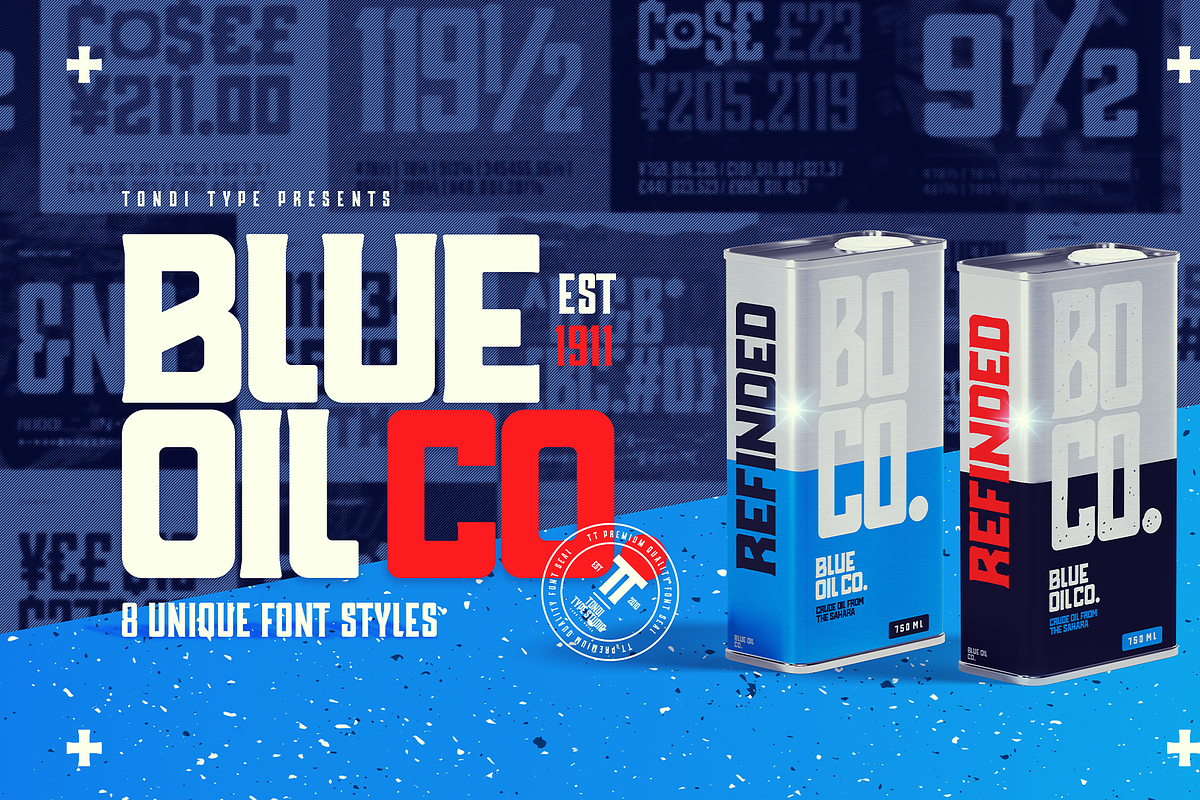
Blue Oil Co. | Vintage Font Family Free Download
Infuse your designs with timeless style using Blue Oil Co. | Vintage Font Family Free Download. This retro-inspired font family includes multiple weights and styles, perfect for logos, branding, product packaging, posters, and any project that needs a touch of vintage charm.
Blue Oil Co. blends classic serif elements with a modern twist, offering bold and clean letterforms with a nostalgic feel. It includes uppercase and lowercase letters, numerals, punctuation, and multilingual support, providing flexibility for a wide range of design applications.